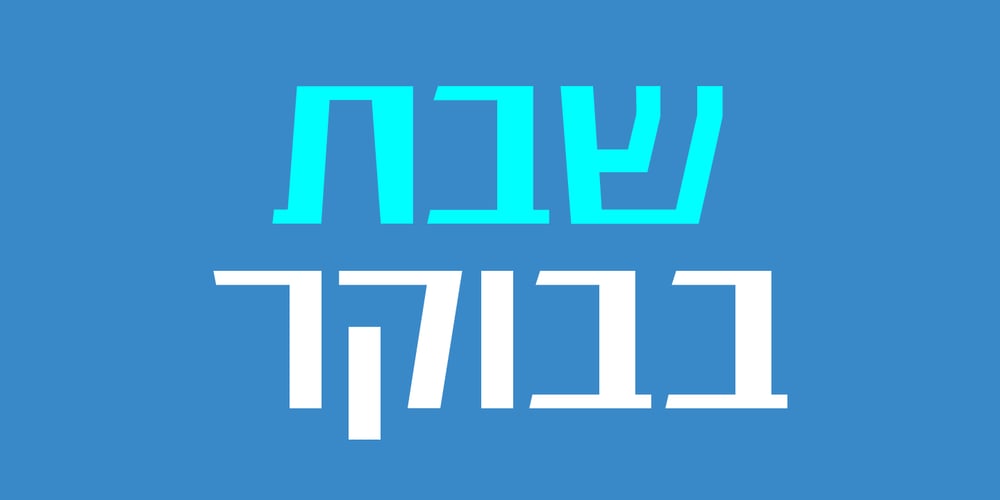
Enigma Sans MF Font Family was designed by Yigal Feurstein and published by Masterfont. Enigma Sans MF contains 4 styles and family package options. As bold as can be – this piece of text will stand out anywhere.